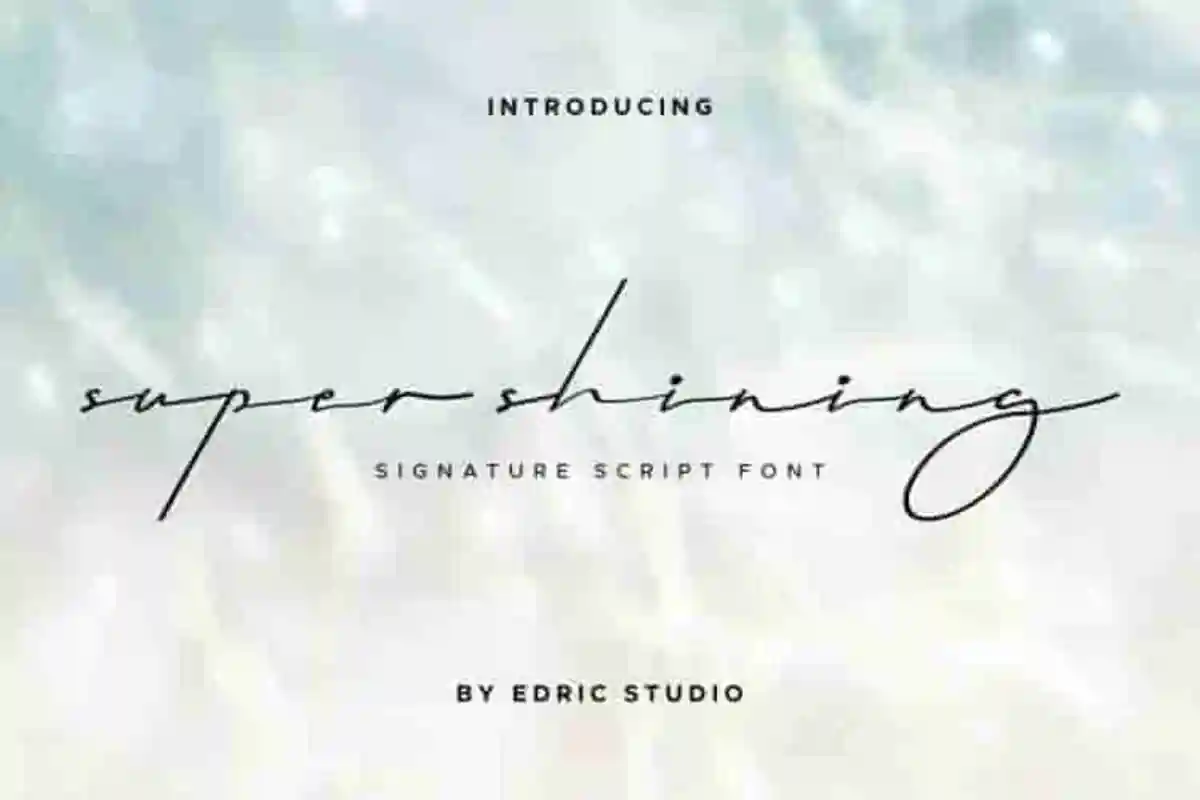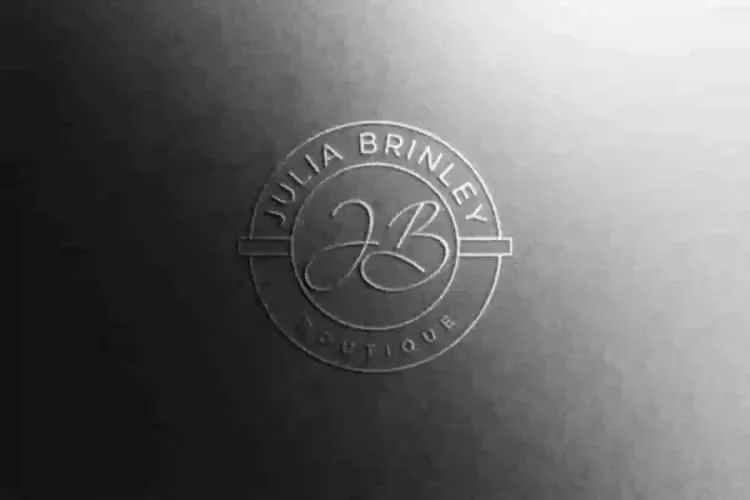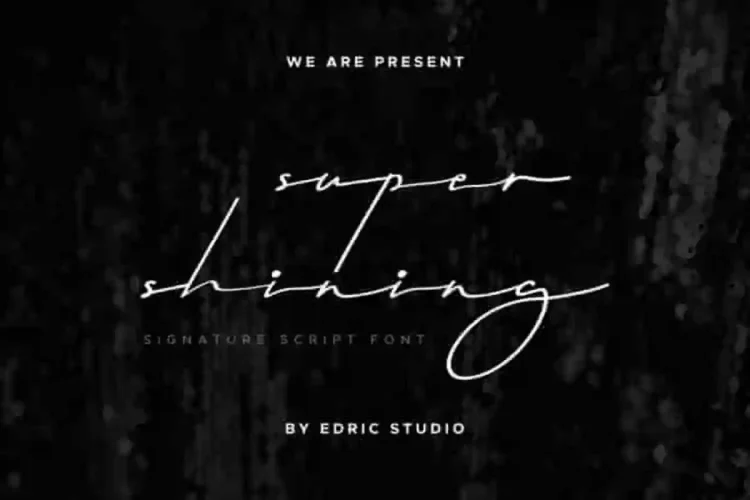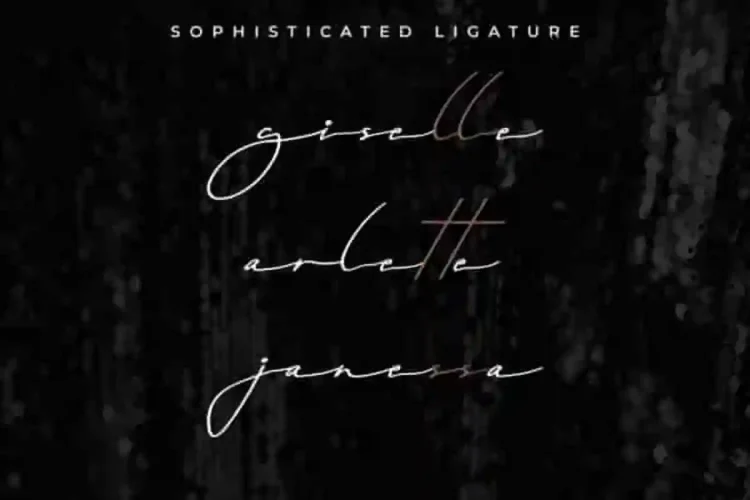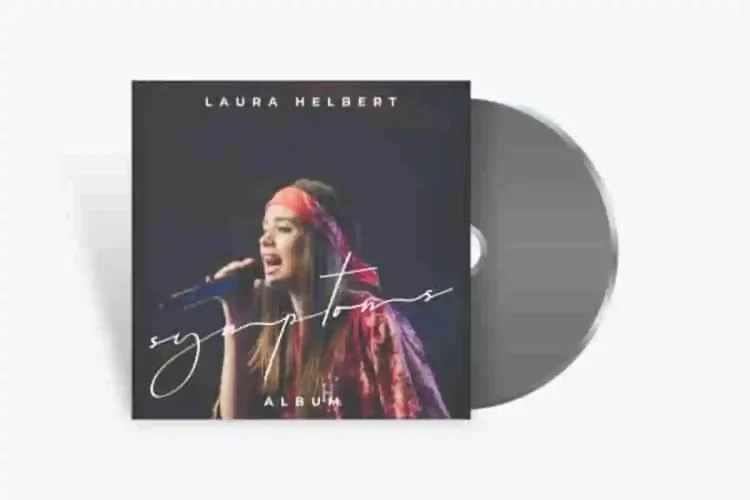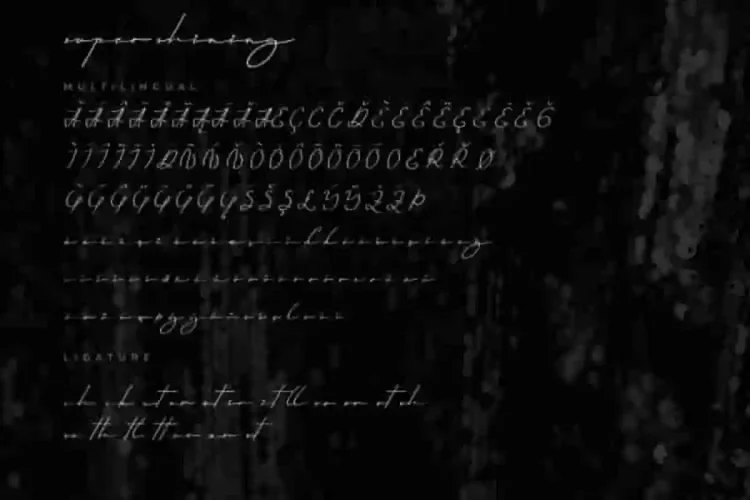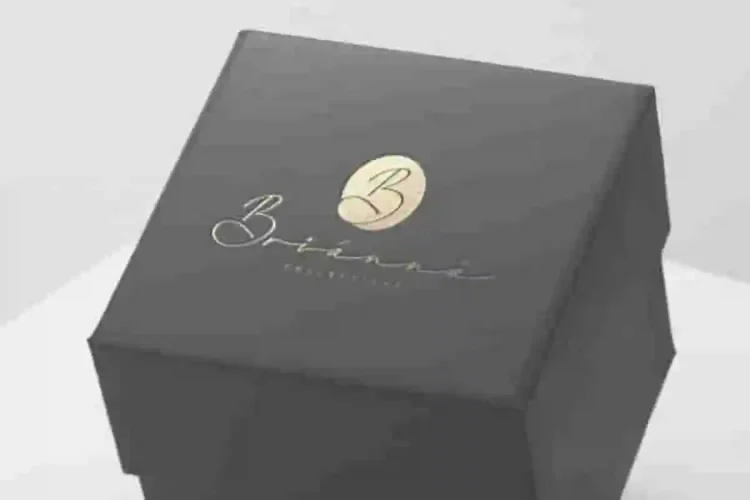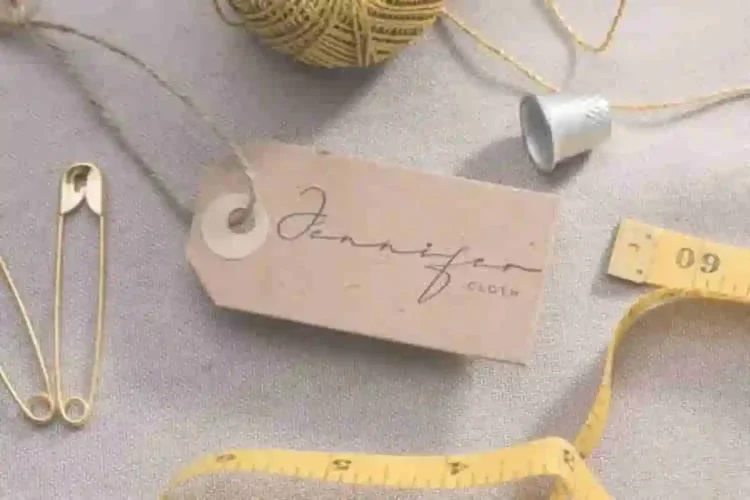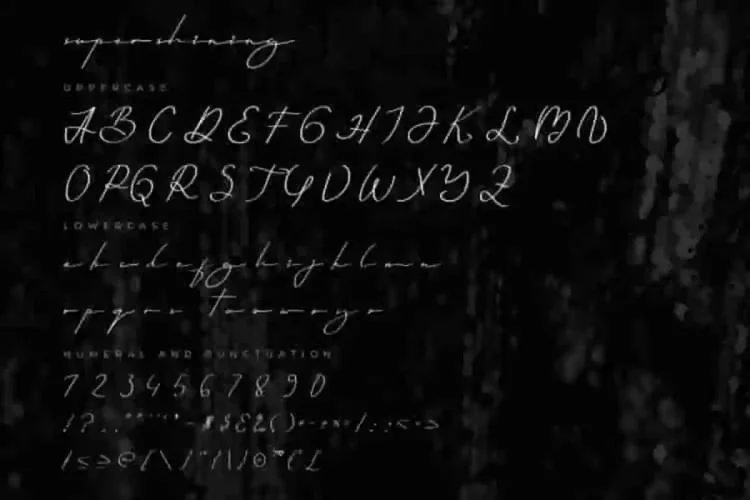
Super Shining Handwritting Signature Font
Introducing our newest font : Super Shining!
This is a new modern script handwriting signature style font. It has a fresh, elegant, natural and stylish glyphs. Will be perfer for any handwritten needed project.
Super Shining Handwritting Signature Font is a sophisticated styling font which will be perfect for branding, logo, photography and signature.